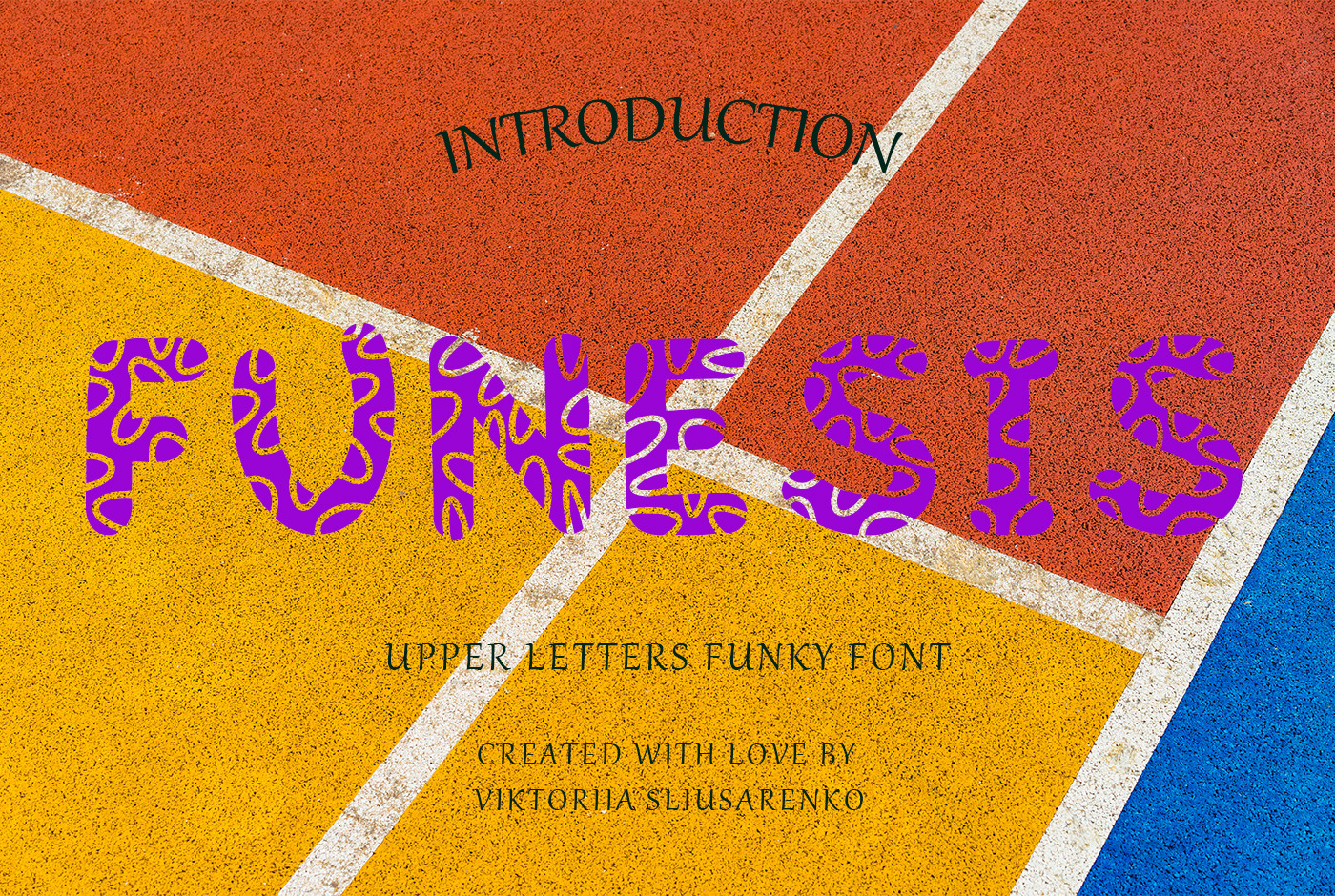
FUNESIS - upper letters font
Introducing Funesis: A Cheerful and Vibrant Handwritten Font for Joyful Designs.
Funesis is a lively and cheerful handwritten font that effortlessly infuses your designs with a touch of joy. This versatile vector font exudes a happy and upbeat appearance, characterized by smooth and flowing lines that evoke a sense of energy and movement. Adding a playful and unique element to its design, Funesis features curvy transparent stripes.
With its hand-drawn style, Funesis brings authenticity and warmth to any design, making it a valuable addition to your font library. To further enhance your creativity, the font includes 13 ligatures, enabling you to create even more unique and captivating designs. Compatible with a wide range of devices and software, Funesis is available in EOT, OpenType, TrueType, SVG, Woff, and Woff2 file formats.
Whether you're crafting a logo for a children's brand or producing social media graphics for an exciting and lighthearted campaign, Funesis guarantees to infuse your designs with a delightful and optimistic vibe. Discover the power of Funesis and let your designs radiate with joy and positivity.